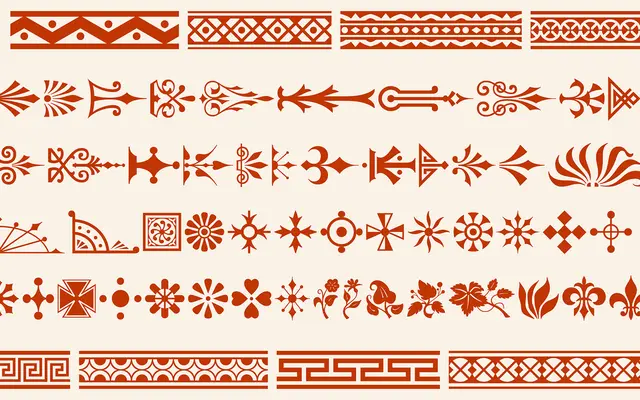
Gothic Extras specimen from Dharma Type
A companion ornament set for Dharma Type's Gothic and Slab families, drawing on Hamilton wood type catalogue borders and frames from the 1800s.
Designed to work alongside Dharma Gothic, Dharma Slab, Rama Gothic and Rama Slab, this collection provides borders, ornaments and frames for period-styled typographic layouts. The source material is Hamilton's vintage wood type catalogues from the nineteenth century, lending the set a distinctly Victorian flavour. Useful for posters, packaging and editorial work where decorative framing is needed.
A decorative ornament and border collection rather than a text typeface; classified as display due to its purely supplementary and decorative function in typographic composition.